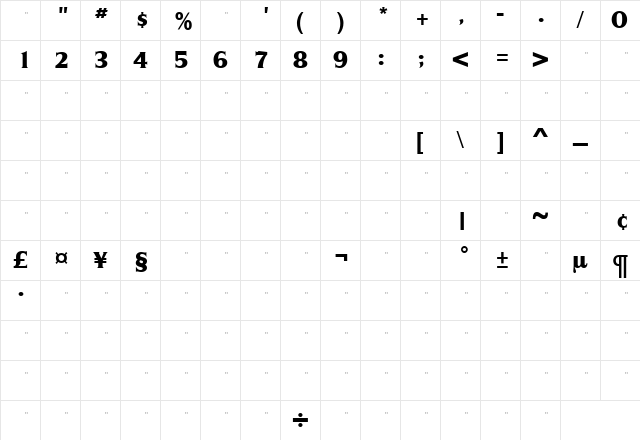
SilveradoExtraBoldTab Roman Font Preview
SilveradoExtraBoldTab Roman
SilveradoExtraBoldTab Roman Font Details
Design Context for SilveradoExtraBoldTab Typeface
SilveradoExtraBoldTab is a composed and adaptable typeface that performs quietly and consistently across a wide range of design contexts. Its bold stroke weight gives it real presence on the page.